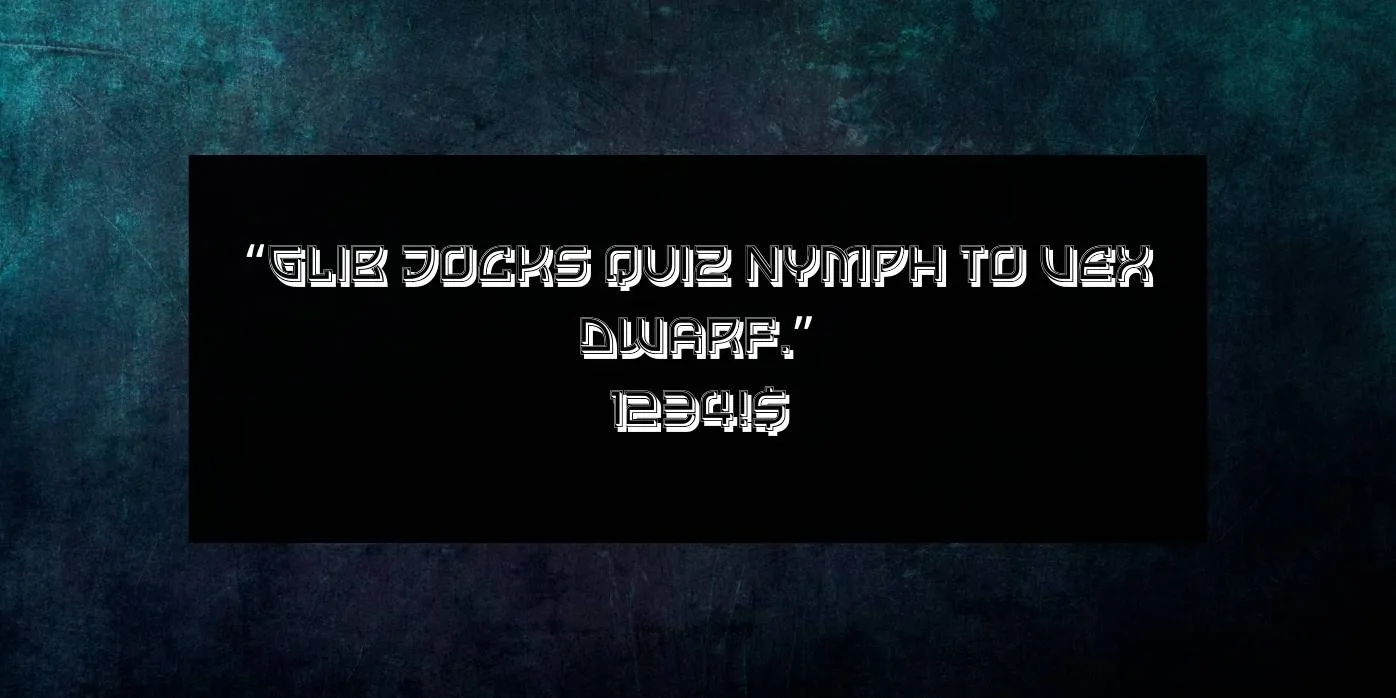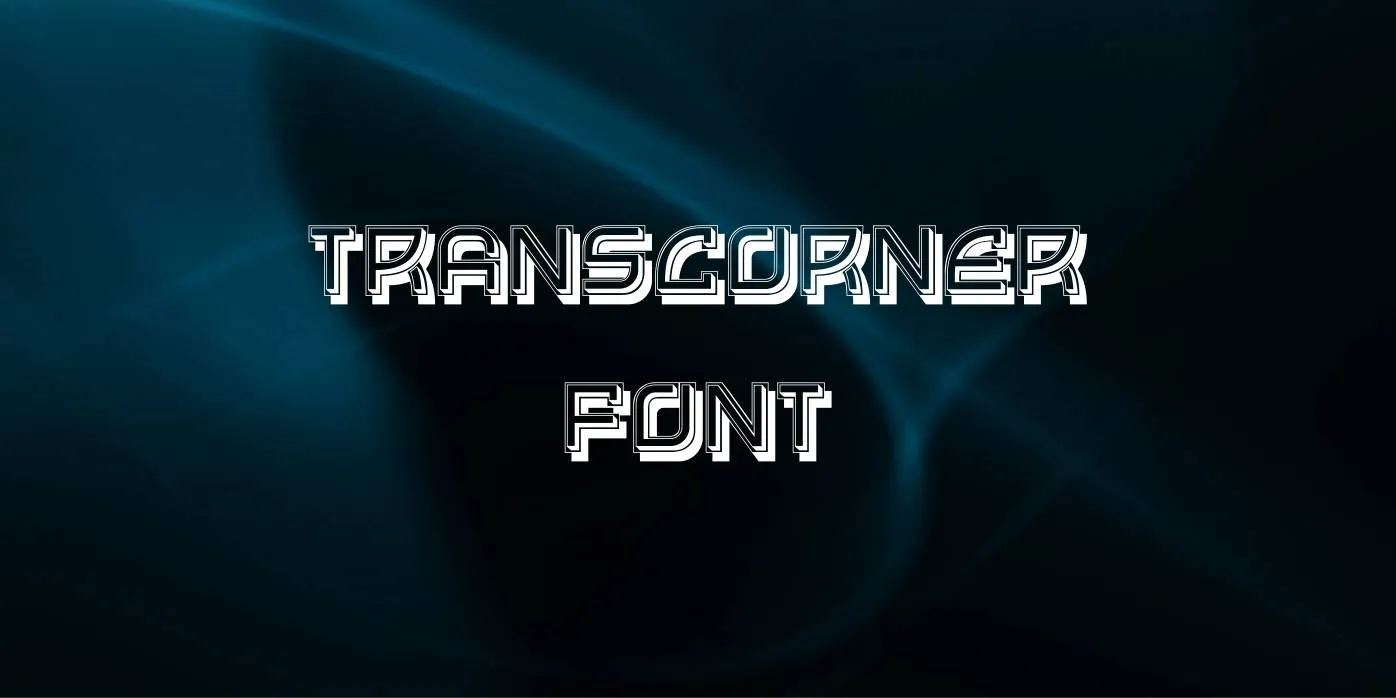
Transcorner Font
Transcorner Font is a techno typeface that was designed by Canadian typeface designer David Leroux. The font is named after the Transcorner Transit Company, which operated in Toronto, Canada from 1961 to 1972. The company was known for its bright orange and green buses, which were a common sight on Toronto streets during the 1960s and 1970s. The Font was designed to be used on the company’s buses and advertisements.
The font has rounded corners, which gives it a friendly and approachable look. You can give your designs a marvelous touch then try to pair lynchburg Font and make your designs astonishing. The Font is available in two weights, regular and bold. The Font is a great choice for any project that needs a friendly and approachable look.
This font has unique characters that look stunning in logos. So, I recommend you to use this font in photoshop to make logos. It is perfect for headlines, logos, and any other type of design that needs a dose of personality.